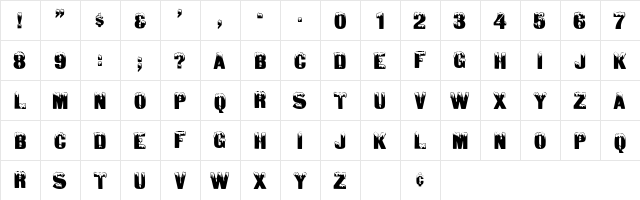
Tone And Debs
Design Context for Tone Typeface
Tone is a composed and adaptable typeface that performs quietly and consistently across a wide range of design contexts.